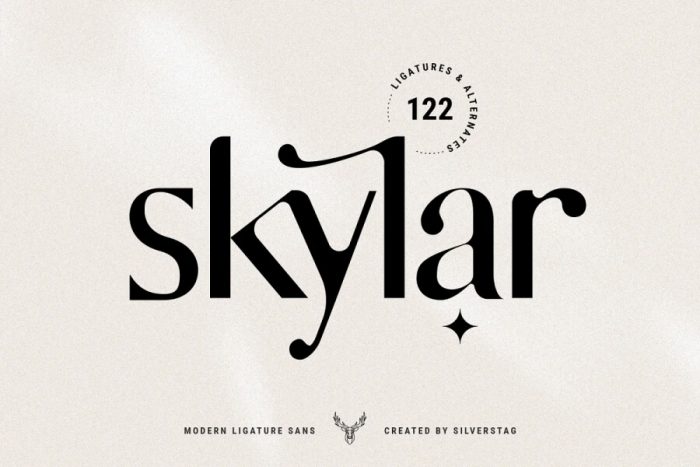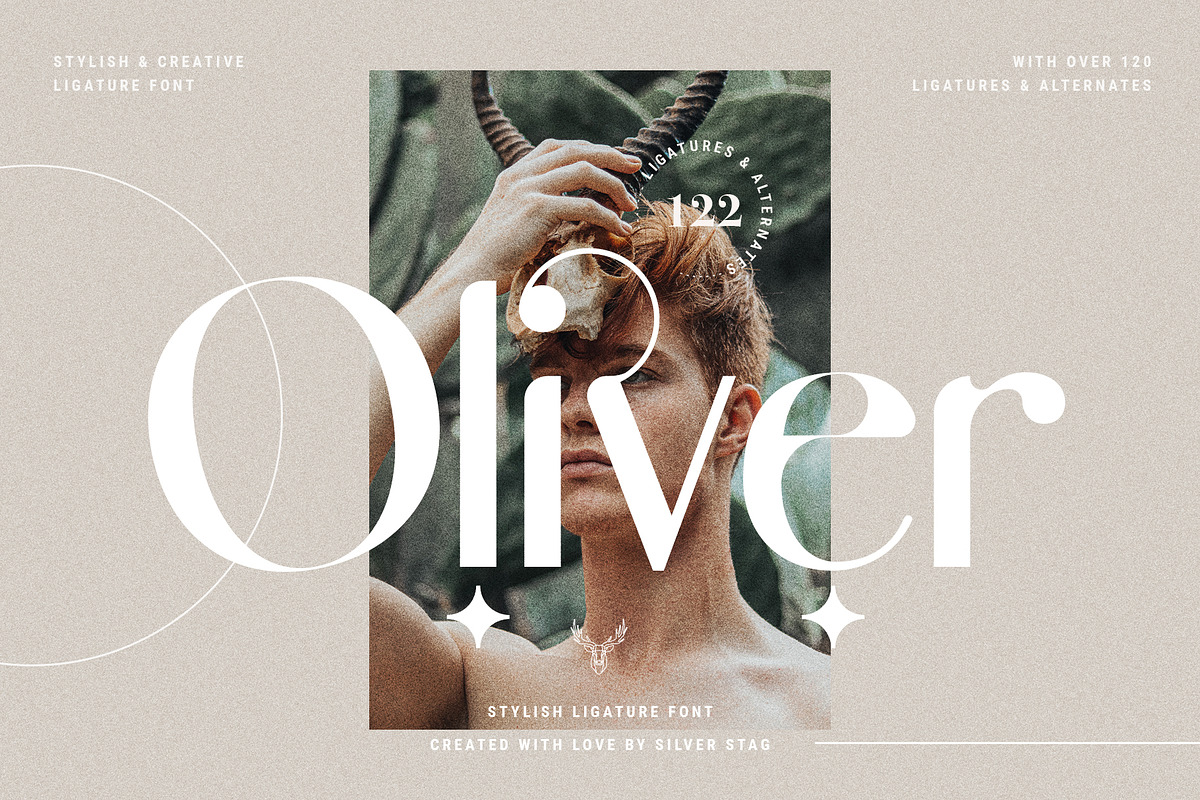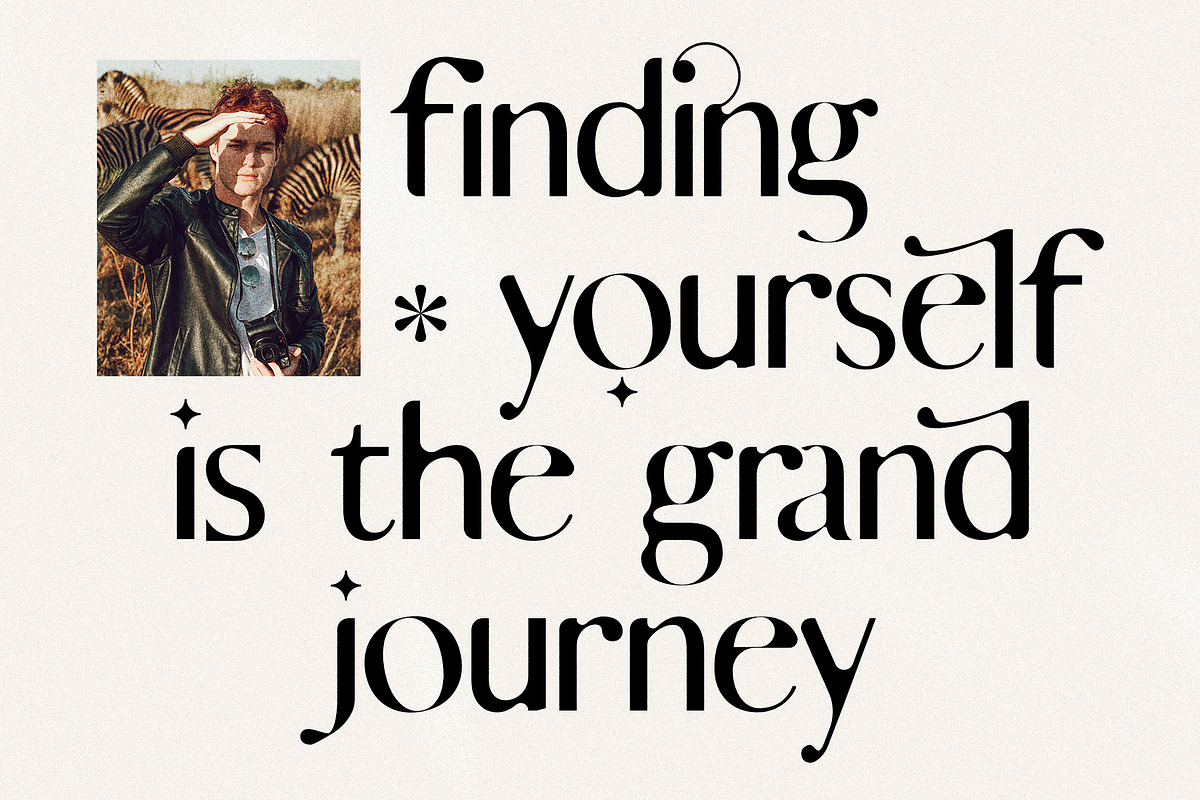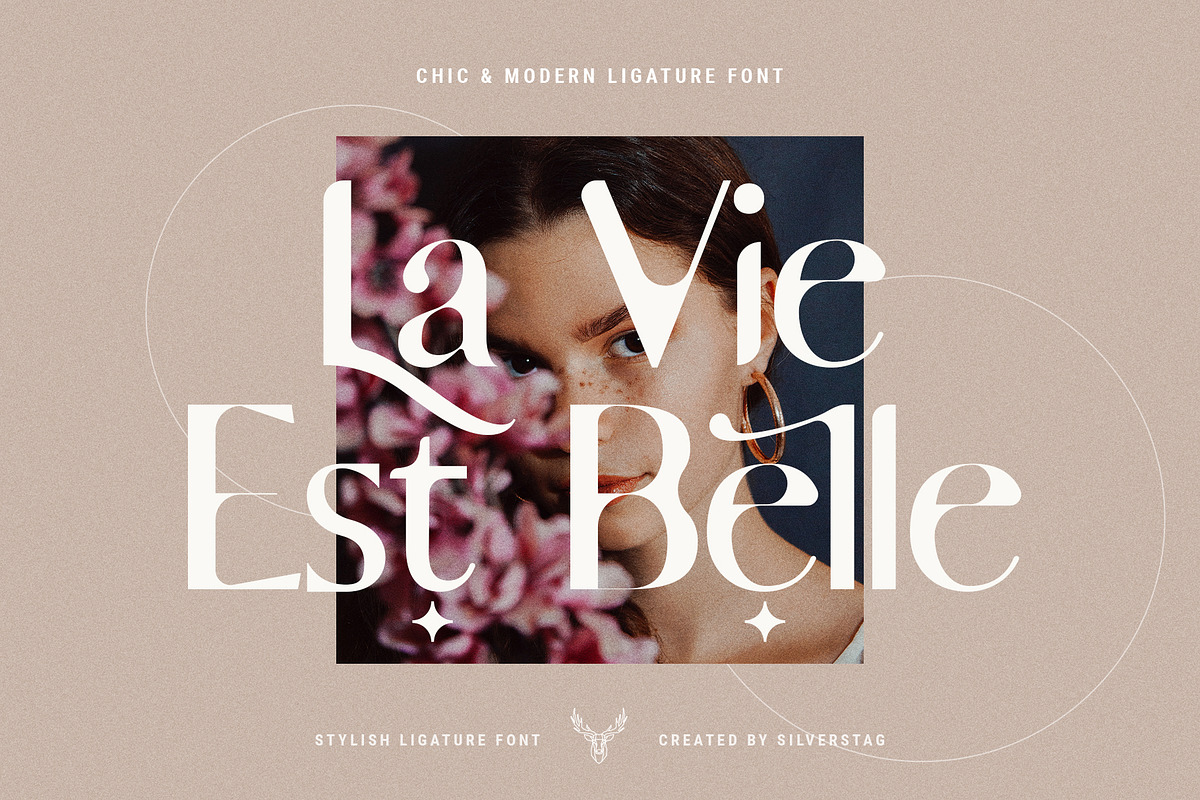
Skylar Font
skylar is a brand new and unique sans font I have been exploring and creating for quite some time now. I wanted to create a font that will work for everyone but at the same time offer unique ideas and elements. I have created a modern sans font with 122 ligatures and alternate letters. If you check out the screenshots above you will see you can use the font for your logo projects, website designs, magazines, and any other kind of graphic design.
With it’s unique and creative ligatures skylar stands out and will make your projects stand out as well. just have a look at the “ky” ligature on the first picture and you’ll see what kind of potential it has.
Skylar Modern Ligature Sans Font